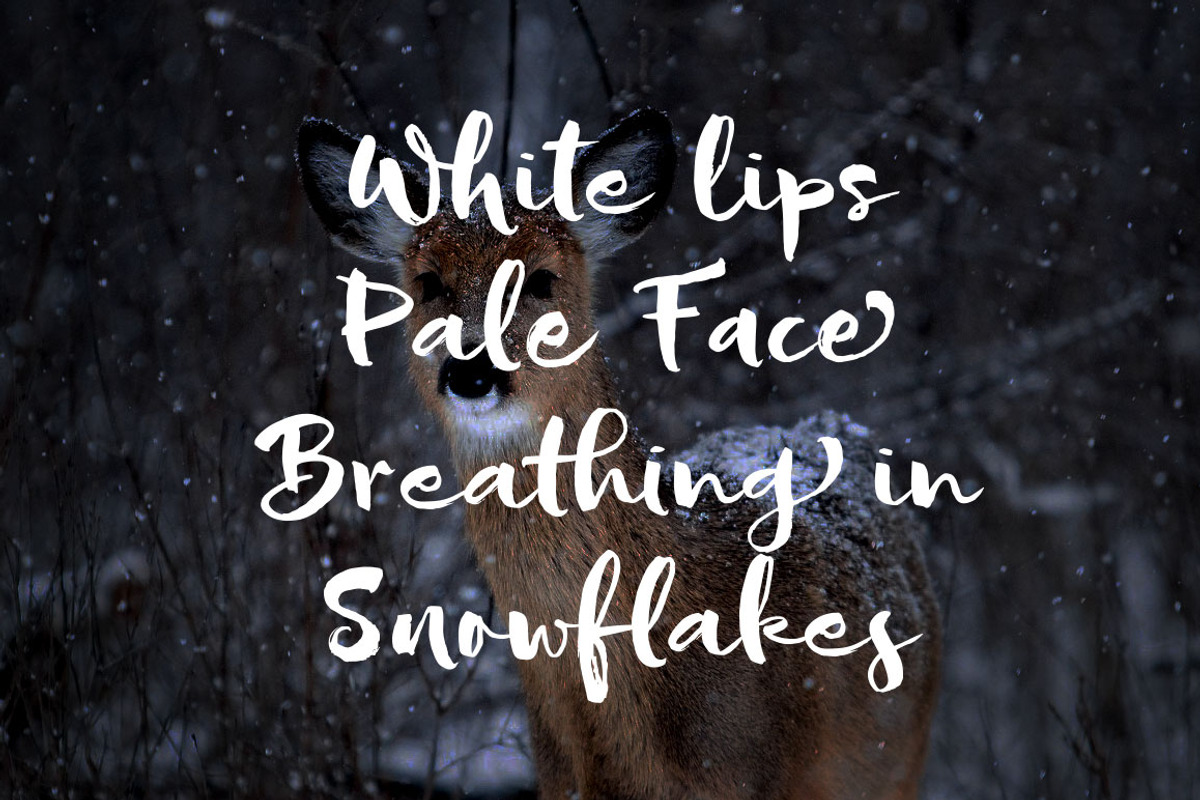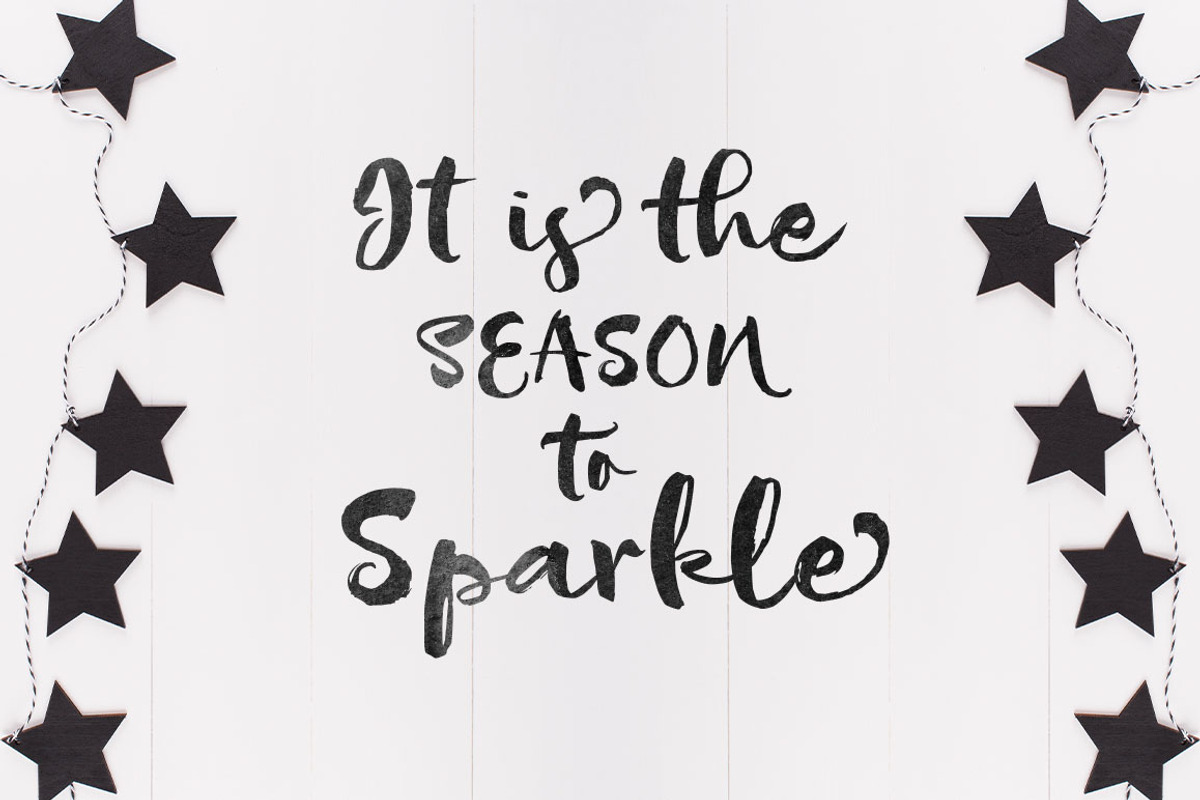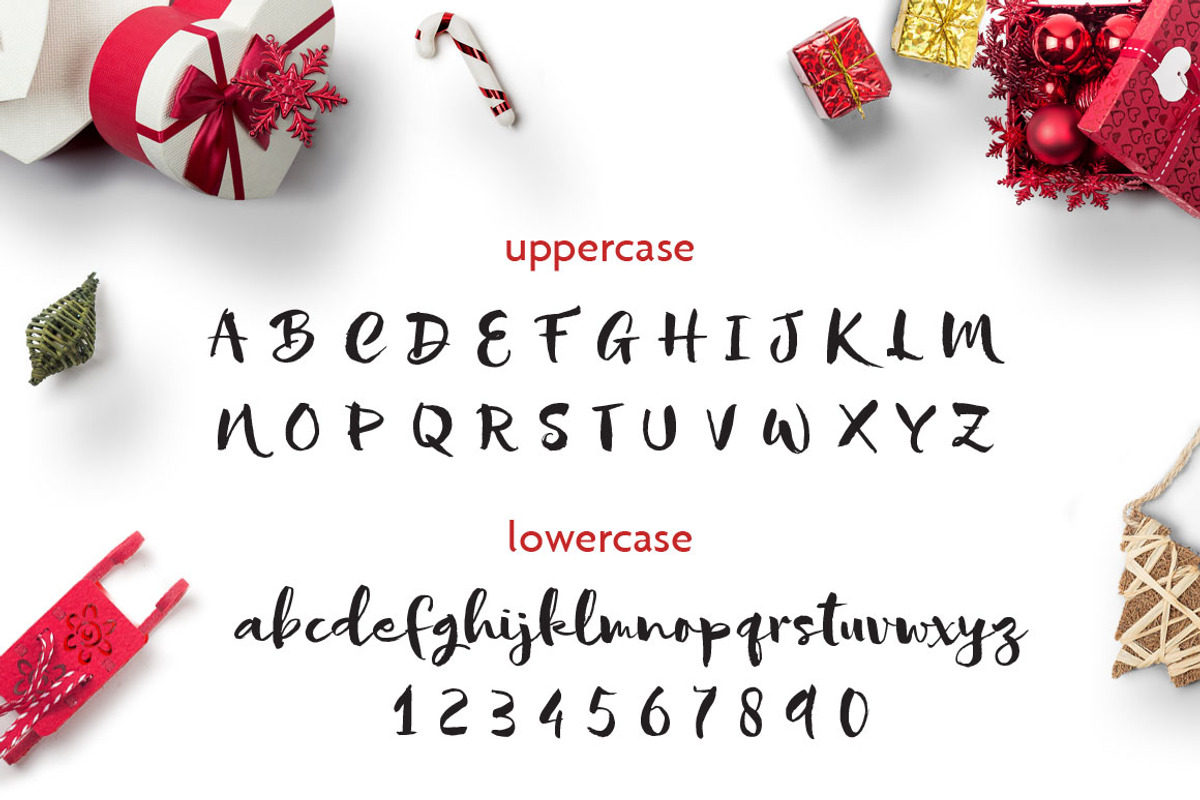
Sofie Script
Introducing Sofie Script a contemporary brush font with simple dancing base and bold, as we're using thick winter jacket. Ideal to complement the design of your special gifts, greeting cards, special quotes, header blog, social media quotes, etc.
A few TIPS for better results, combine Sofie Script with the serif/sans serif font formal style may be thick or thinner, do not use regular.
OpenType Features :
- Standard Ligatures.
- Contextual Alternates (to get the terminals).
- Swash.
- Stylistic Alternates.